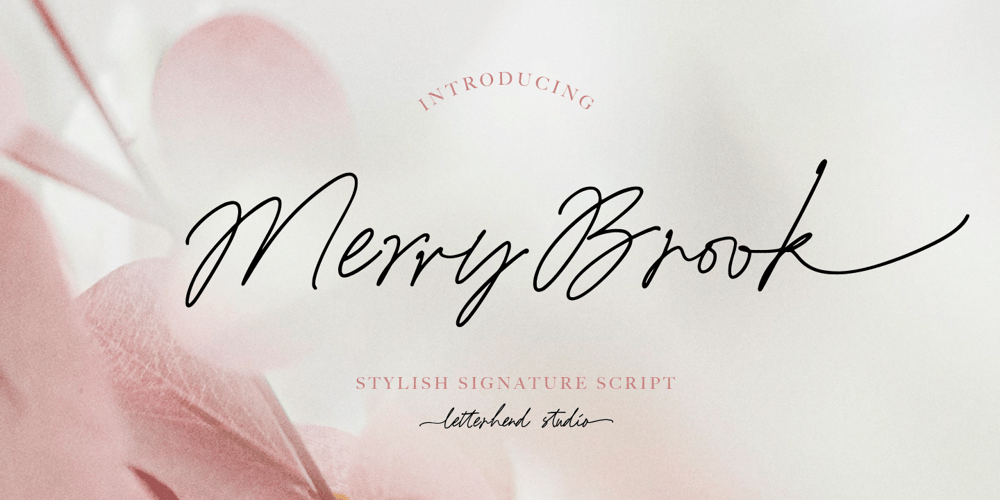
Merry Brook Font Family was designed by Hendry Juanda and published by Letterhend. Merry Brook contains 1 styles and family package options. Merry Brook is a beautiful signature script based on manual hand writing. The stylistic alternate, ligatures and the tick and thin stroke kk make this font looks a real hand writing instead of typing a font. This type of font perfectly made to be applied especially in logo, and the other various formal forms such as invitations, labels, logos, magazines, books, greeting / wedding cards, packaging, fashion, make up, stationery, novels, labels or any type of advertising purpose.